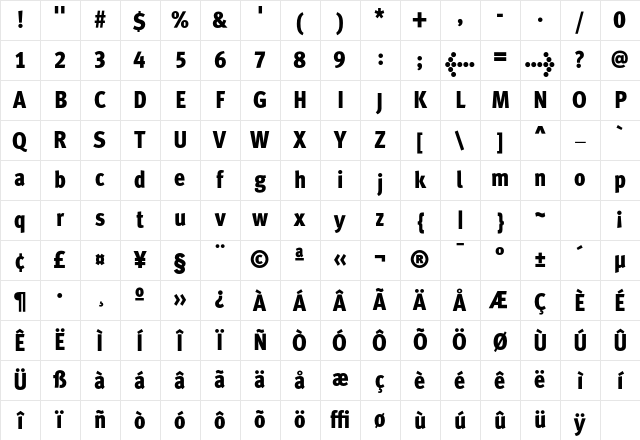
MetroMeta CondBlack Free Font
MetroMeta CondBlack
Style: CondBlack
Complete MetroMeta CondBlack glyph index. Displaying only characters natively supported by MetroMeta CondBlack font.
Design Context for MetroMeta
MetroMeta is a composed and adaptable typeface that performs quietly and consistently across a wide range of design contexts. Its narrow stance lets it pack a punch even in space-constrained designs.